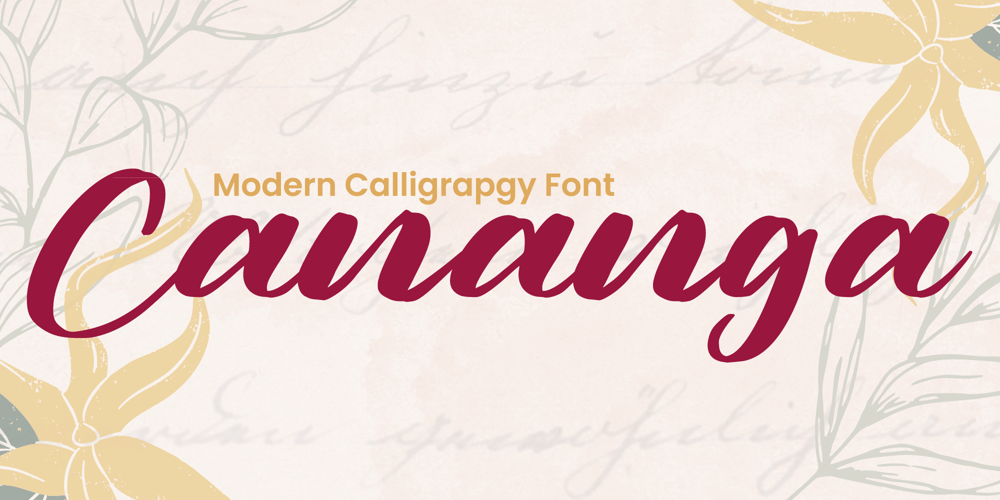
Cananga Font Family was designed by Heri Imanudin and published by Krafted. Cananga contains 1 styles and family package options. Looking for a font that’ll make your branding radiate elegance? Something that’s versatile, stylish, and eternal? Introducing Cananga – A Modern Calligraphy Font. This handcrafted calligraphy font can be used for various different promotions or projects. Use it to create standout headings, promote your online sales, Instagram quotes, and even printed materials like business cards, t-shirts, or invitations. Get whisked away to the Victorian era with Cananga. What you’ll get: Multilingual & Ligature Support Full sets of Punctuation and Numerals Compatible with: Adobe Suite Microsoft Office KeyNote Pages Software Requirements: The fonts that you’ll receive in the pack are widely supported by most software. In order to get the full functionality of the selection of standard ligatures (custom created letters) in the script font, any software that can read OpenType fonts will work. We hope you enjoy this font and that it makes your branding sparkle! Feel free to reach out to us if you’d like more information or if you have any concerns.